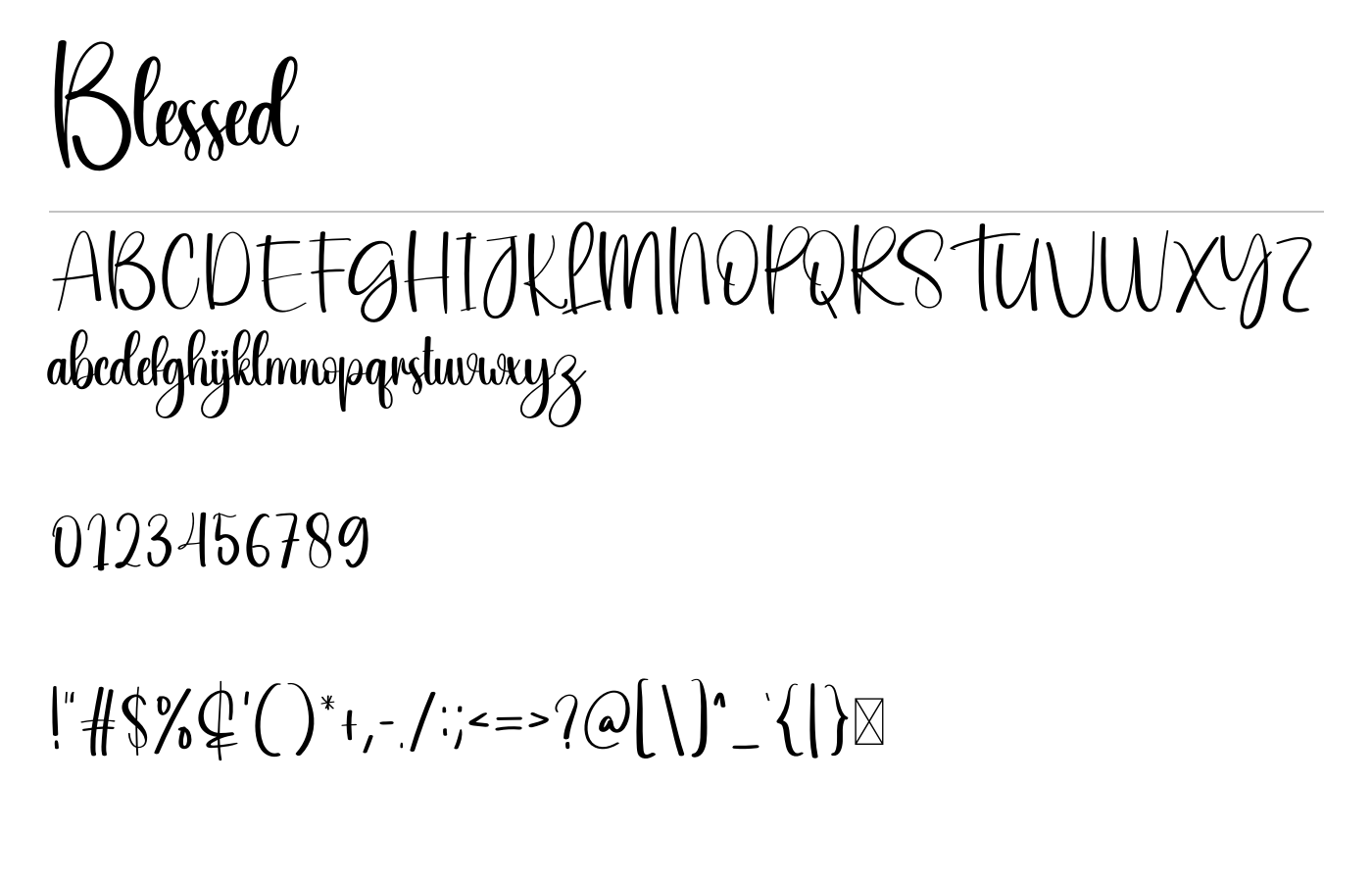
Blessed Font is a playful and elegant handwritten script that balances thin and smooth strokes with a charming, casual flair. Its tall, narrow letterforms and lively loops bring a personal, friendly feel, making it perfect for creative branding, invitations, and feminine or boutique design projects. This font’s distinctive style adds warmth and personality, ideal for headlines, logos, and decorative text that seek a handwritten touch.
Blessed Font
About Blessed Font